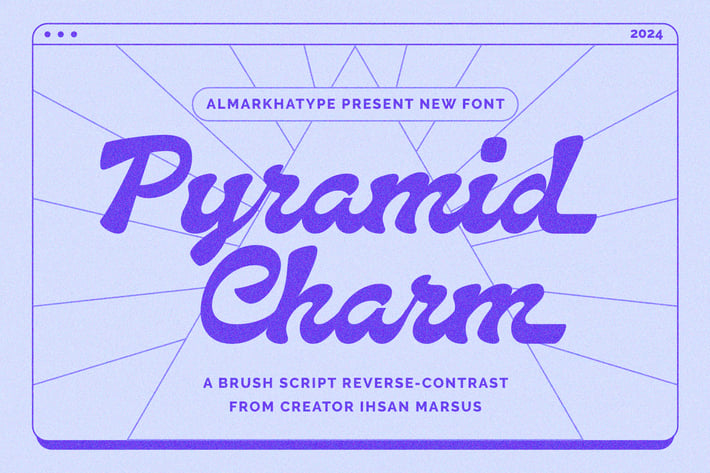
Pyramid Charm – Charming Script Font
Experience the enchanting vibes of Pyramid Charm, a reverse-contrast brush script that embodies the mystical allure of ancient pyramids and the surrounding desert landscapes. Ideal for packaging, labels, posters, and headlines, Pyramid Charm exudes a distinctive and captivating charm.
This versatile font boasts a plethora of OpenType features to elevate your designs. Contextual Alternates ensure seamless connections between characters, while a variety of Swash, Stylistic, and Titling Alternates offer alternative uppercase characters and ampersands. Additionally, delight in Swash terminals for every lowercase character, adding an extra touch of elegance to your typography.
+ Ligatures glyphs
+ Alternate glyphs
+ International Accent